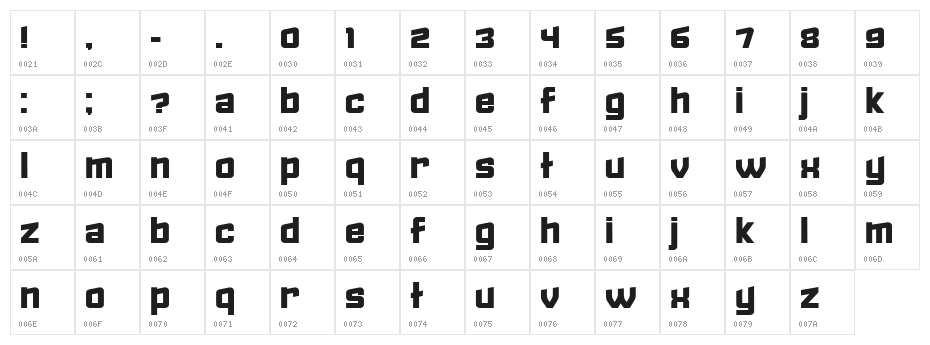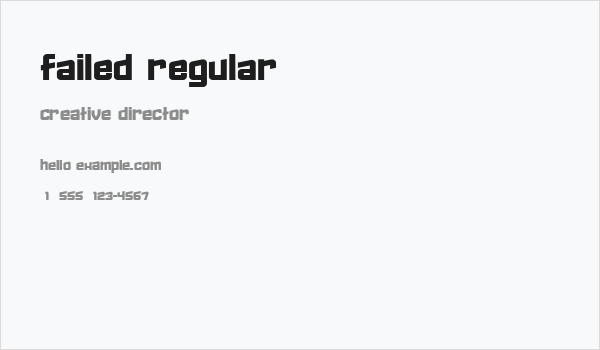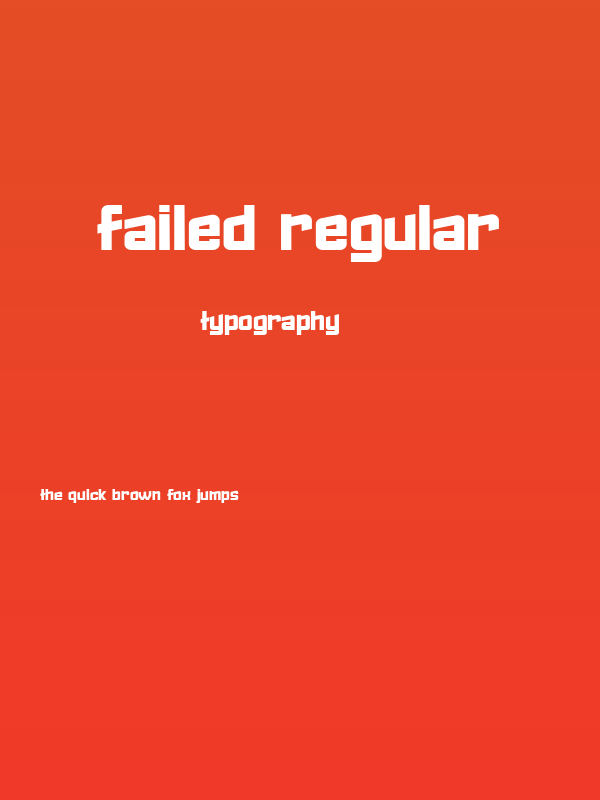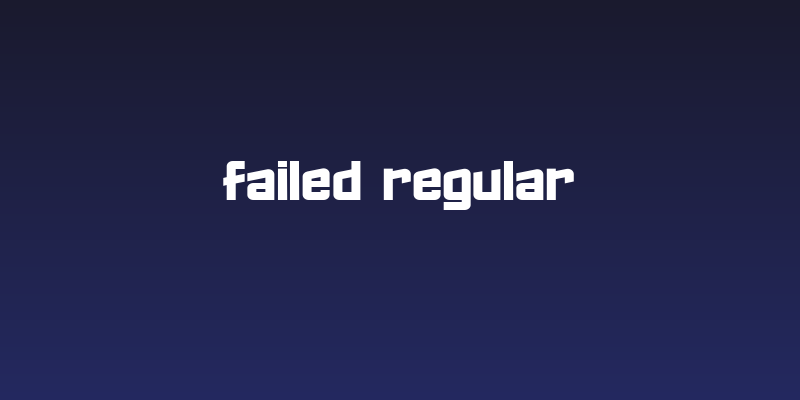
Failed Regular Font
Failed Regular Description
This font features a bold and geometric design, characterized by its strong, block-like appearance. The letters are uniformly thick, giving it a robust and impactful presence. The angular edges and straight lines contribute to a modern and industrial feel. The characters are evenly spaced, ensuring readability while maintaining a compact look. The numerals and special characters follow the same design principles, offering consistency across all elements. This font is ideal for making a statement, with its boldness capturing attention effectively.
| Proposed Projects | This font is perfect for branding, headlines, posters, and any project that requires a strong visual impact. |